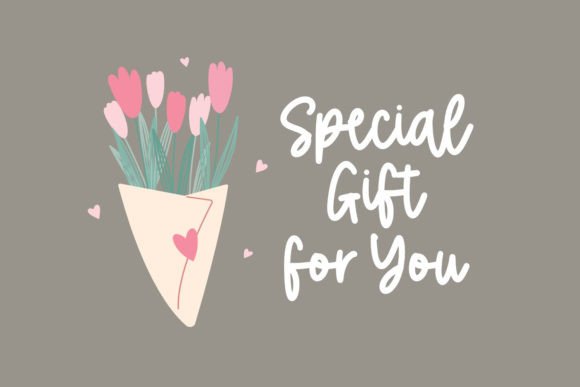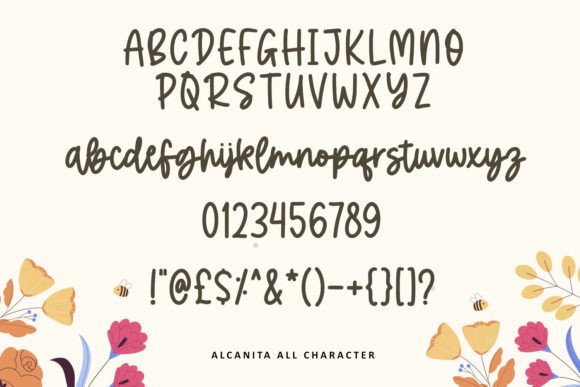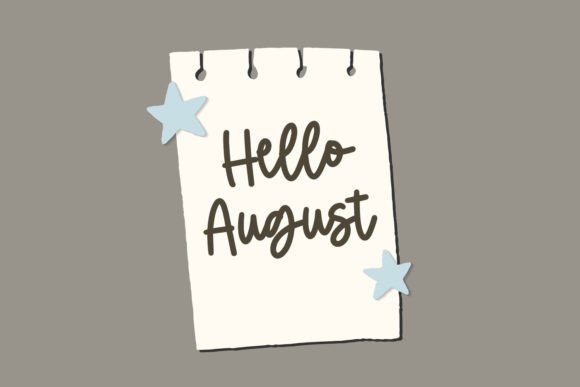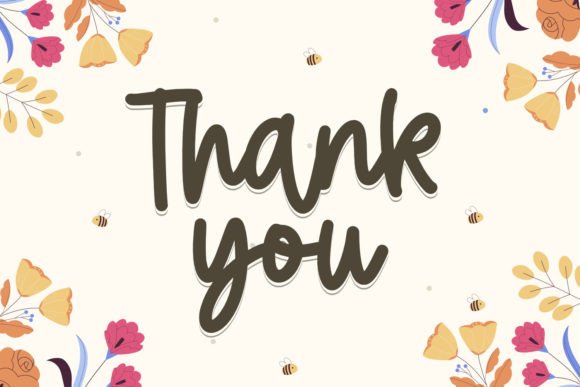
The Perfect Font to Bring Your Ideas to Life
Have you ever had one of those magical moments where your creative juices are flowing and you can envision the perfect project unfolding before your eyes? You’re brainstorming, sketching, and typing away, and suddenly, the words just start flowing. It’s a feeling like no other, and the right font can make all the difference. That’s where the Alcanita Font comes in – a quirky handwritten font that adds a touch of personality to any project.
This enchanting font is designed to bring your ideas to life with its casual and relaxed touch. Whether you’re working on a blog post, a social media campaign, or a graphic design project, the Alcanita Font is the perfect companion to help you stand out from the crowd. For designers, it’s a valuable addition to their toolkit, offering a unique and eye-catching way to express their creativity.
Alcanita Font Key Features
- Unique Characteristics: This font features a unique, modern script style with elegant connections between letters, making it perfect for creative and artistic applications.
Alcanita Font Review
As a designer, I was excited to dive into Alcanita Font and see what it had to offer. Overall, I was pleased with the result.
- Unique and elegant design: Alcanita Font has a distinctive look that’s both modern and sophisticated. It’s perfect for projects where you want to make a statement.
- Wide range of languages supported: The font is available in a multitude of languages, making it a versatile choice for global projects.
- High-quality vector files: The vector files are clean, scalable, and easy to work with.
- Limited font sizes: The font may not be the best choice for projects requiring extremely large or small font sizes.
- May not be suitable for very long text: The font’s design may make it challenging to read very long blocks of text.
Overall, I’m impressed with Alcanita Font’s unique design and versatility. While it may have some limitations, it’s a great choice for projects where you want to add some elegance and sophistication. I would definitely consider using it again in the future.
Tips: Experiment with different font sizes and colors to create a visually appealing design. Use Alcanita Font for headings or titles to add a touch of elegance.
Tips: Use Alcanita Font in combination with other elegant fonts to create a sophisticated design. Experiment with different font sizes and colors to add depth and interest.
Tips: Use Alcanita Font for headings or titles to add a touch of sophistication. Experiment with different font sizes and colors to create a visually appealing design.
Alcanita Font is ideal for:
- Editorial and publishing designs
Use Alcanita Font to add a touch of elegance and sophistication to your designs.
Playfair Display is an elegant and luxurious serif font ideal for creating high-end designs, such as luxury brand logos, high-end fashion labels, or elegant invitations. It’s perfect for showcasing sophistication and refinement.
Compared to Alcanita Font, Playfair Display has a more classic and timeless feel, with a focus on intricate details and luxurious flair. While Alcanita Font has a more modern and geometric feel, Playfair Display exudes a sense of tradition and heritage.
Montserrat is a geometric sans-serif font that’s perfect for modern and urban designs, such as cityscapes, tech startups, or minimalist logos. It’s great for creating a clean and sleek look that’s easy to read.
Compared to Alcanita Font, Montserrat has a more industrial and modern feel, with a focus on clean lines and geometric shapes. While Alcanita Font has a more organic and hand-drawn feel, Montserrat exudes a sense of efficiency and precision.
Q: What is the recommended font size and line height for the Alcanita Font?
For optimal readability, we recommend using the Alcanita Font at font sizes between 12px and 24px, with a line height of at least 1.2x the font size. This will ensure that the text is clear and easy to read on various devices and screen resolutions.